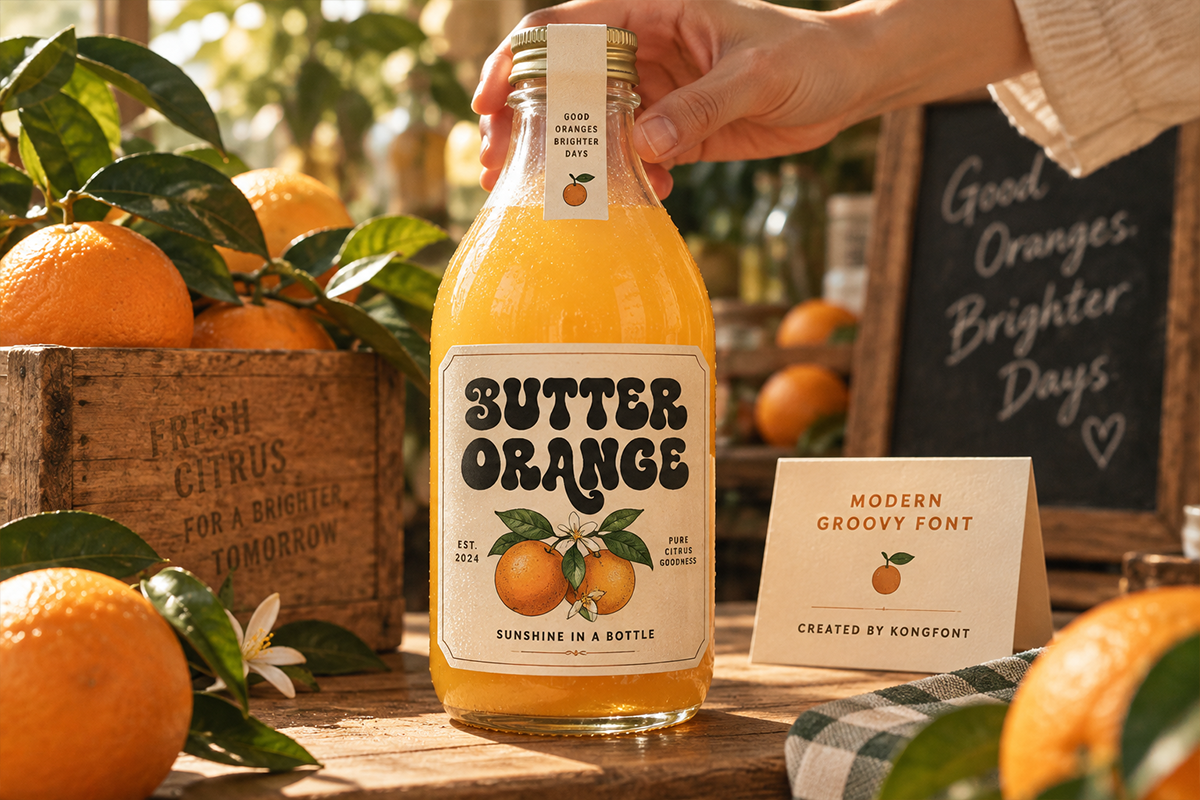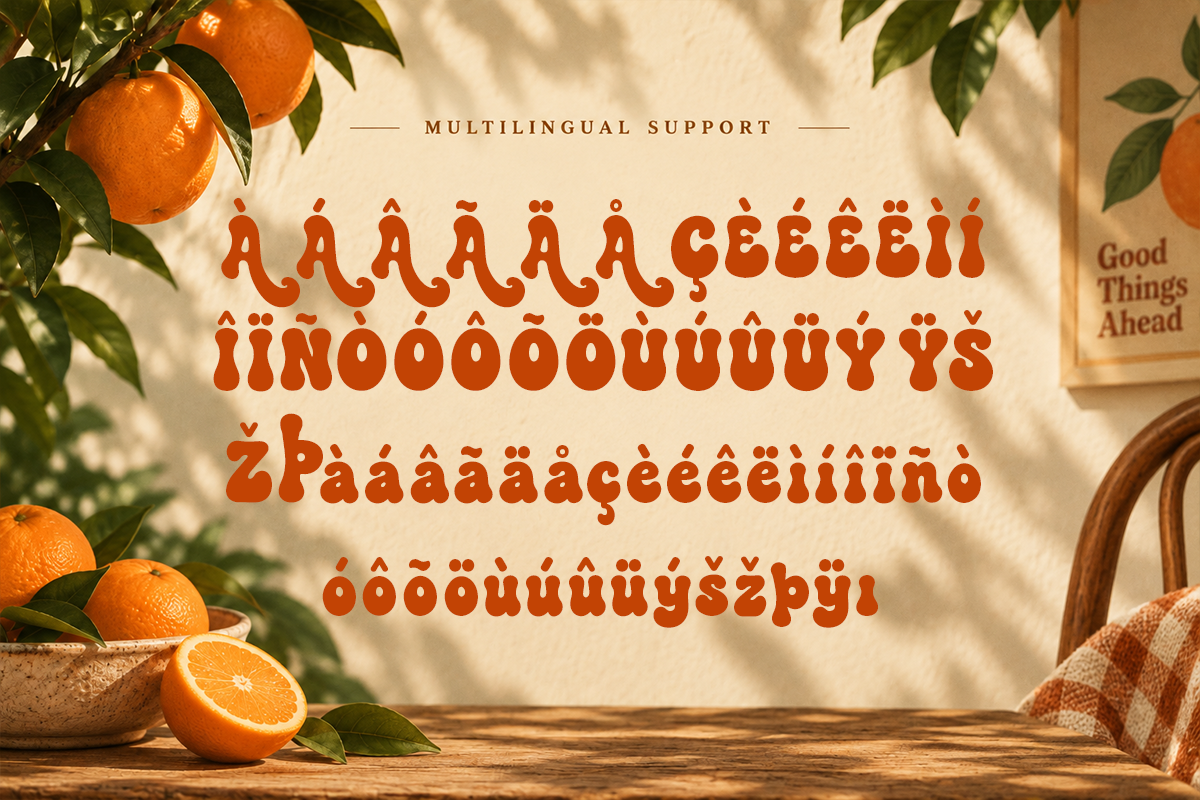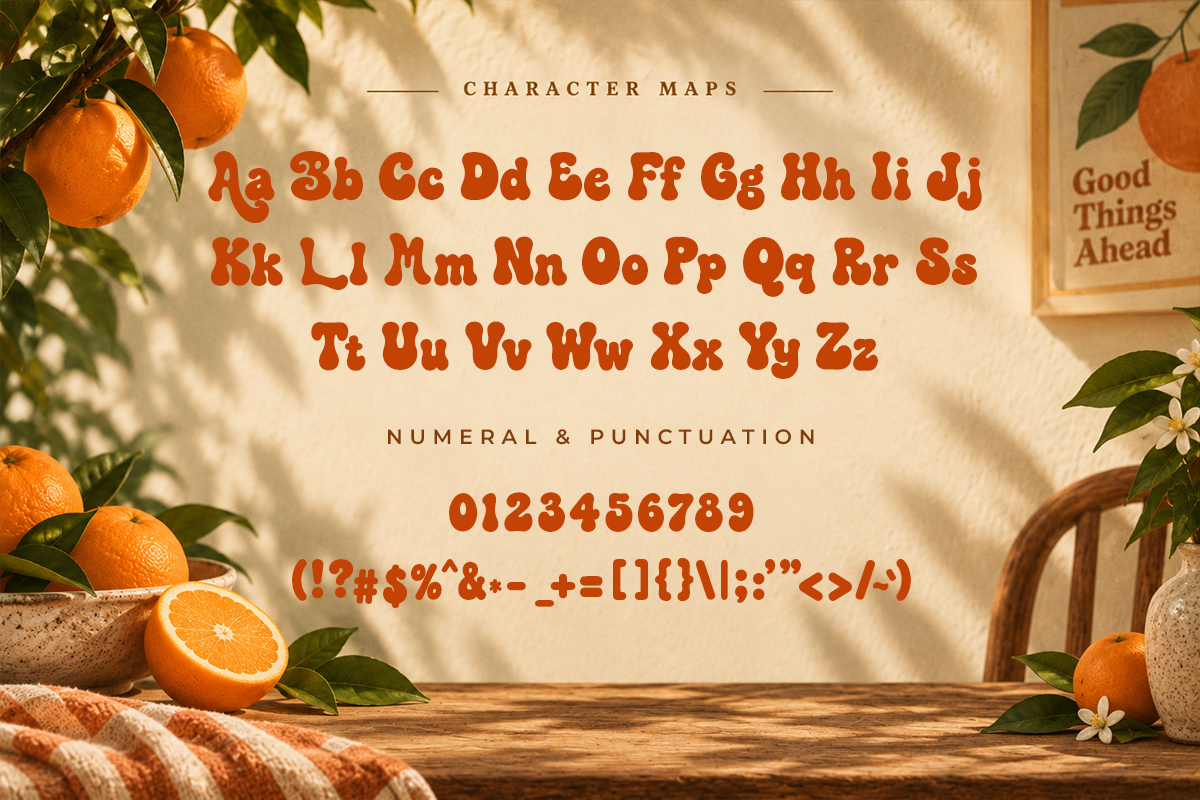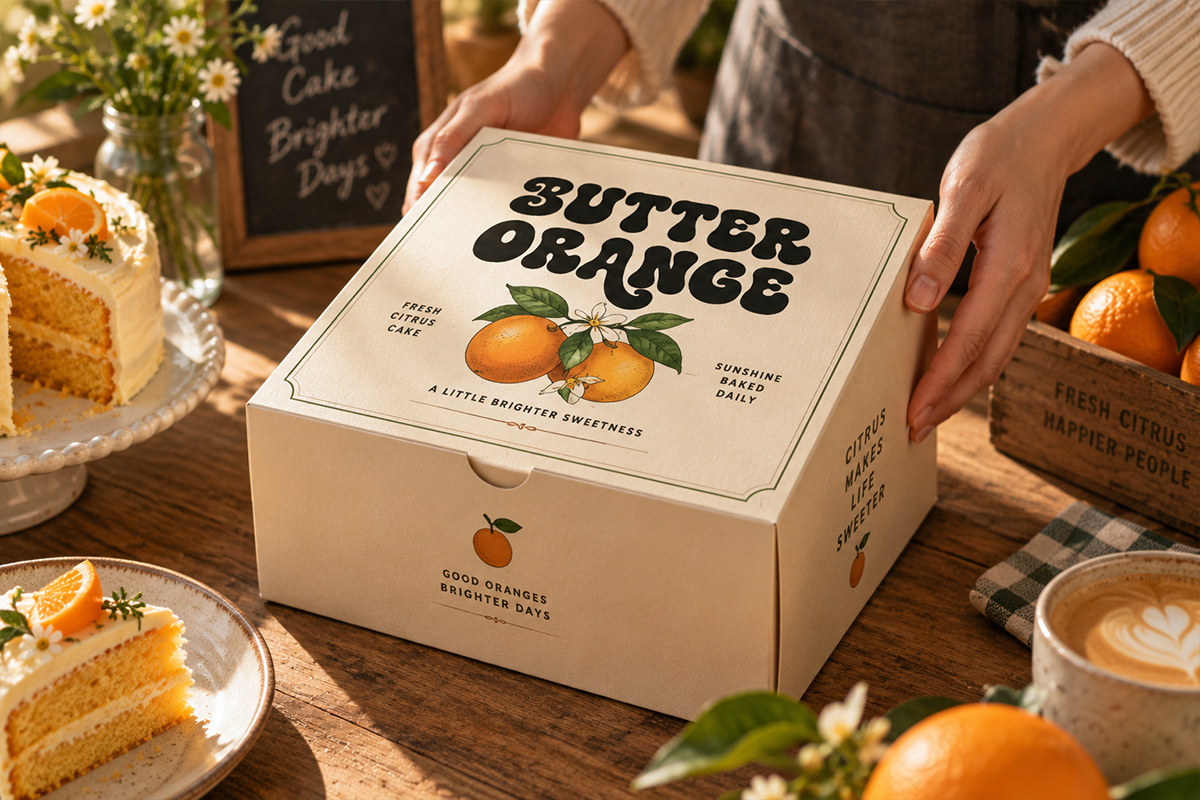
Butter Orange A Modern Display Font is a modern display font built for creative work that needs a bold and contemporary personality. The design combines strong proportions, clear silhouettes, and expressive display-focused letterforms, giving the typeface a clear visual identity without sacrificing practical readability for display use.
Butter Orange is especially effective for logos, posters, headlines, branding, packaging, apparel, album covers, and social media graphics. It can carry the main visual voice in a logo or headline, while still feeling cohesive across supporting graphics, campaign assets, packaging, and branded content.
The typeface pairs the direction of a modern display font with the character of a display typeface. This makes it a strong option when you want typography that feels intentional, memorable, and closely matched to the project mood instead of using a generic display face.
Recommended for:
- Logos
- Posters
- Headlines
- Branding
- Packaging
- Apparel
- Album Covers
- Social Media Graphics